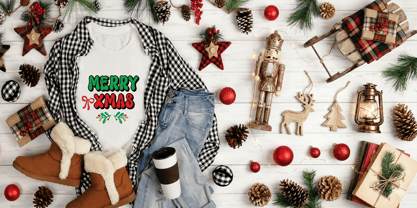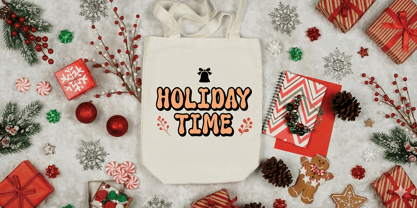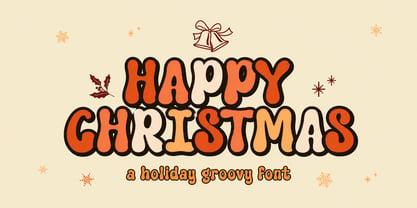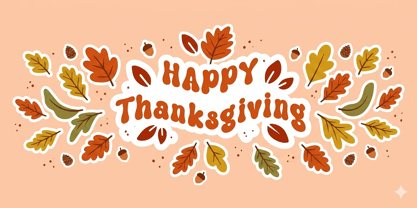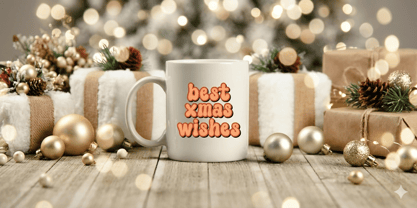
Happy Christmas – Cute Groovy Christmas Font for Festive Holiday Designs
Happy Christmas is a cute and groovy Christmas font designed to capture the joyful spirit of the holiday season. With its playful shapes and whimsical style, this festive font brings warmth, charm, and celebration to any creative project.
Inspired by the magical atmosphere of winter holidays, Happy Christmas features friendly letterforms that feel cheerful and inviting. Its fun and decorative style makes it perfect for spreading holiday happiness through typography, whether in greeting cards, invitations, or seasonal decorations.
This charming Christmas font works beautifully across many festive themes. From the snowy magic of Christmas and winter celebrations to cozy autumn crafts and joyful New Year designs, Happy Christmas helps create typography that feels lively, nostalgic, and full of holiday spirit.
Happy Christmas is especially suitable for creative holiday projects such as greeting cards, banners, posters, and party invitations. The playful characters give every design a joyful personality, making it perfect for DIY crafts, Cricut projects, and seasonal decorations.
Whether you’re designing Christmas cards, festive packaging, or cheerful social media graphics, Happy Christmas adds a delightful and magical touch to your typography.
Let your designs sparkle like falling snow and shine like holiday lights with this charming festive font.
Key Features
Cute Christmas Font
Playful and friendly letterforms designed for holiday-themed designs.
Groovy Festive Style
Fun and whimsical shapes perfect for cheerful seasonal projects.
Perfect Holiday Display Font
Great for Christmas headlines, greeting cards, and festive banners.
Craft-Friendly Font
Ideal for DIY projects, Cricut crafts, and holiday decorations.
Versatile Seasonal Typography
Works beautifully for Christmas, winter, New Year, and festive celebrations.
Multilingual Support
Extended characters for international language support.
Perfect For
• Christmas Greeting Cards
• Holiday Invitations & Party Designs
• Winter Posters & Banners
• Festive Social Media Graphics
• DIY Craft Projects
• Cricut & Cutting Machine Projects
• Gift Tags & Holiday Packaging
• New Year Celebration Designs
Why Choose Happy Christmas?
Happy Christmas is a delightful cute Christmas font that brings joy, warmth, and festive charm to your designs. Its playful personality makes it perfect for holiday projects that need typography full of happiness and seasonal magic.